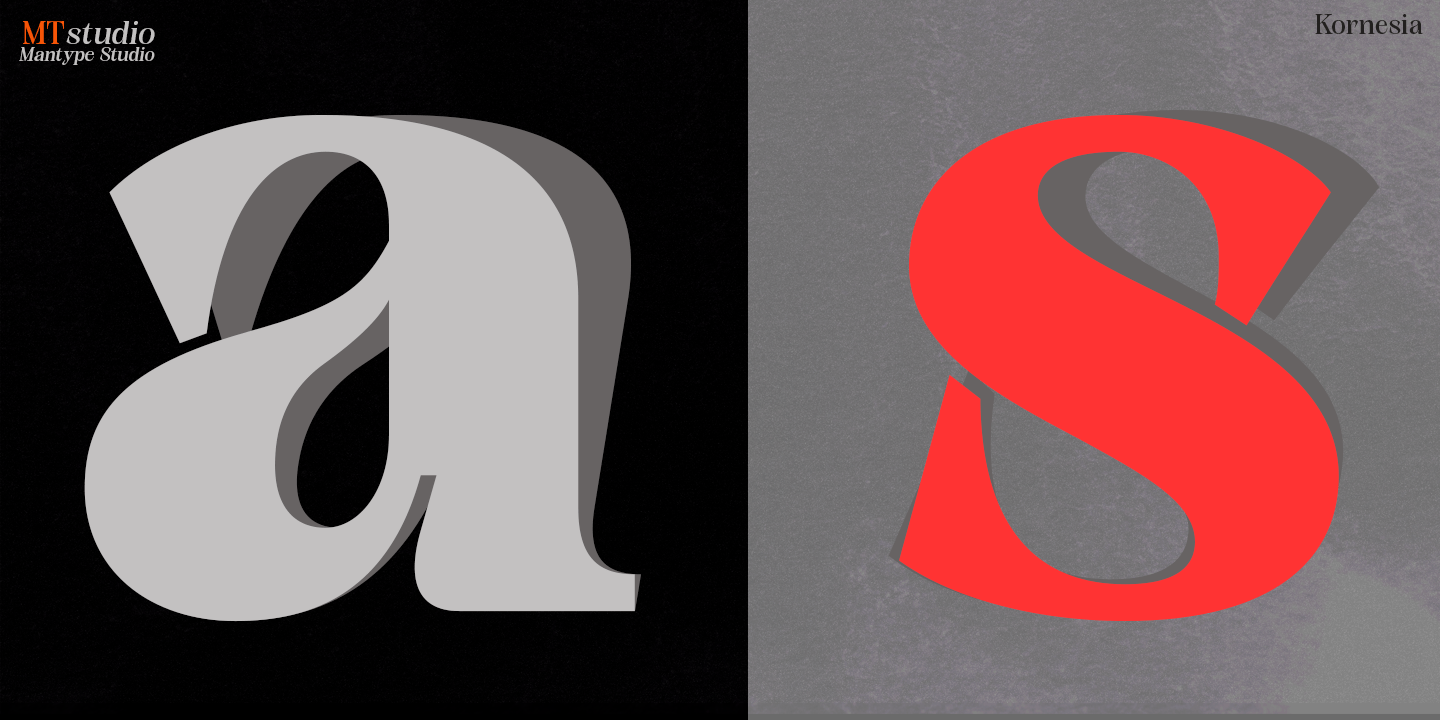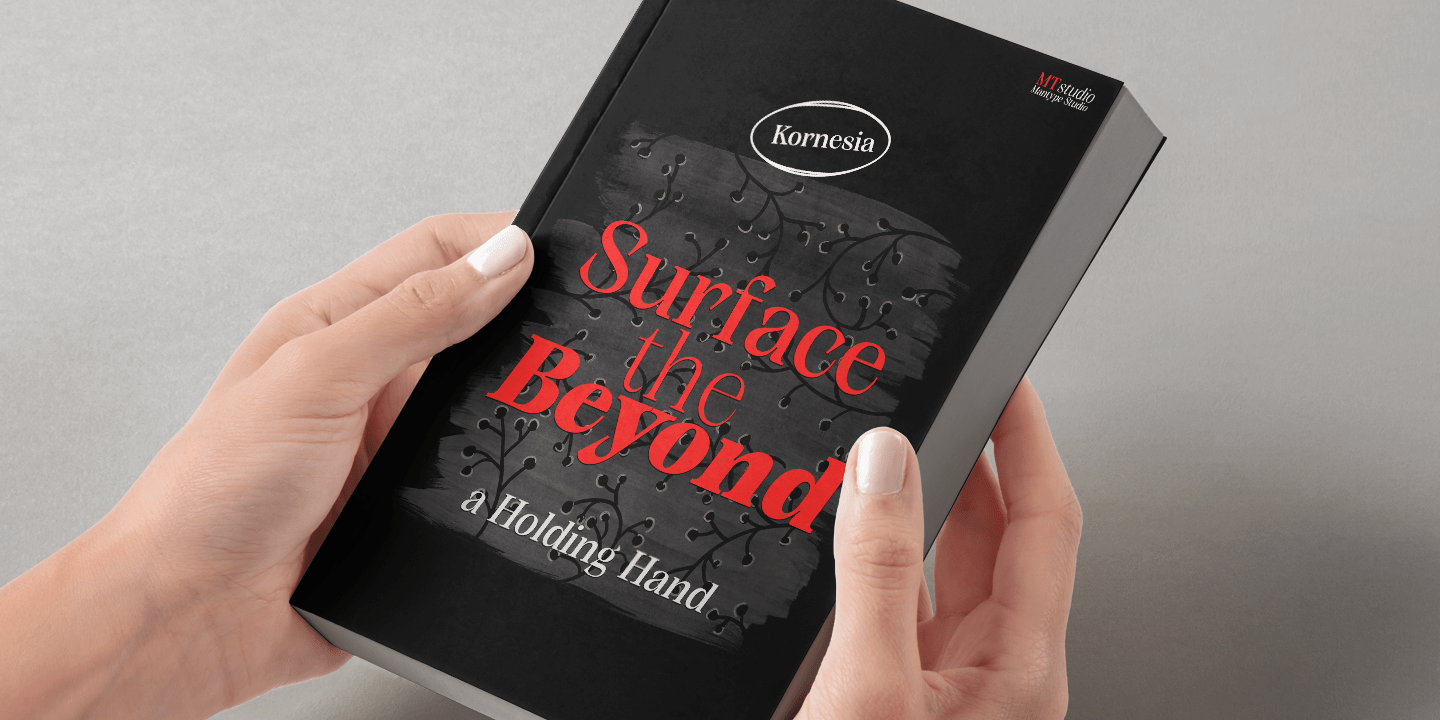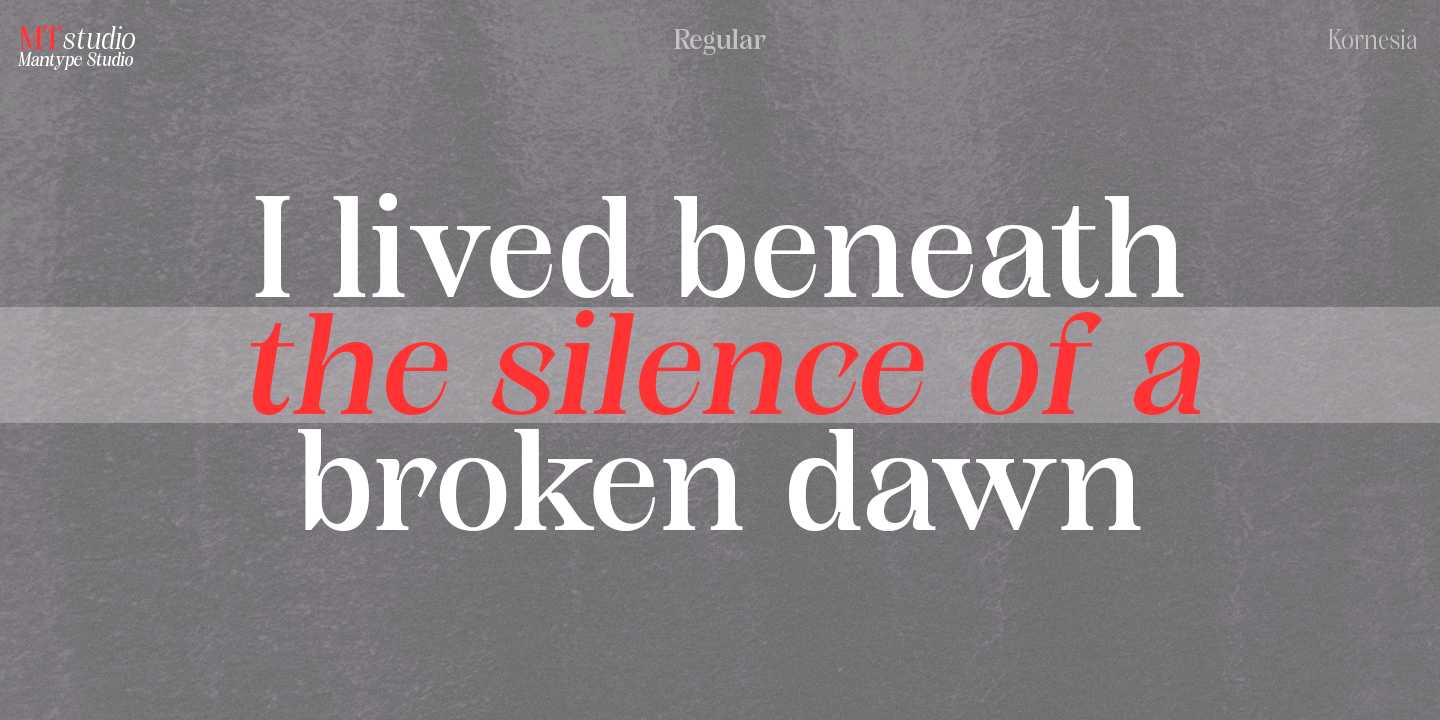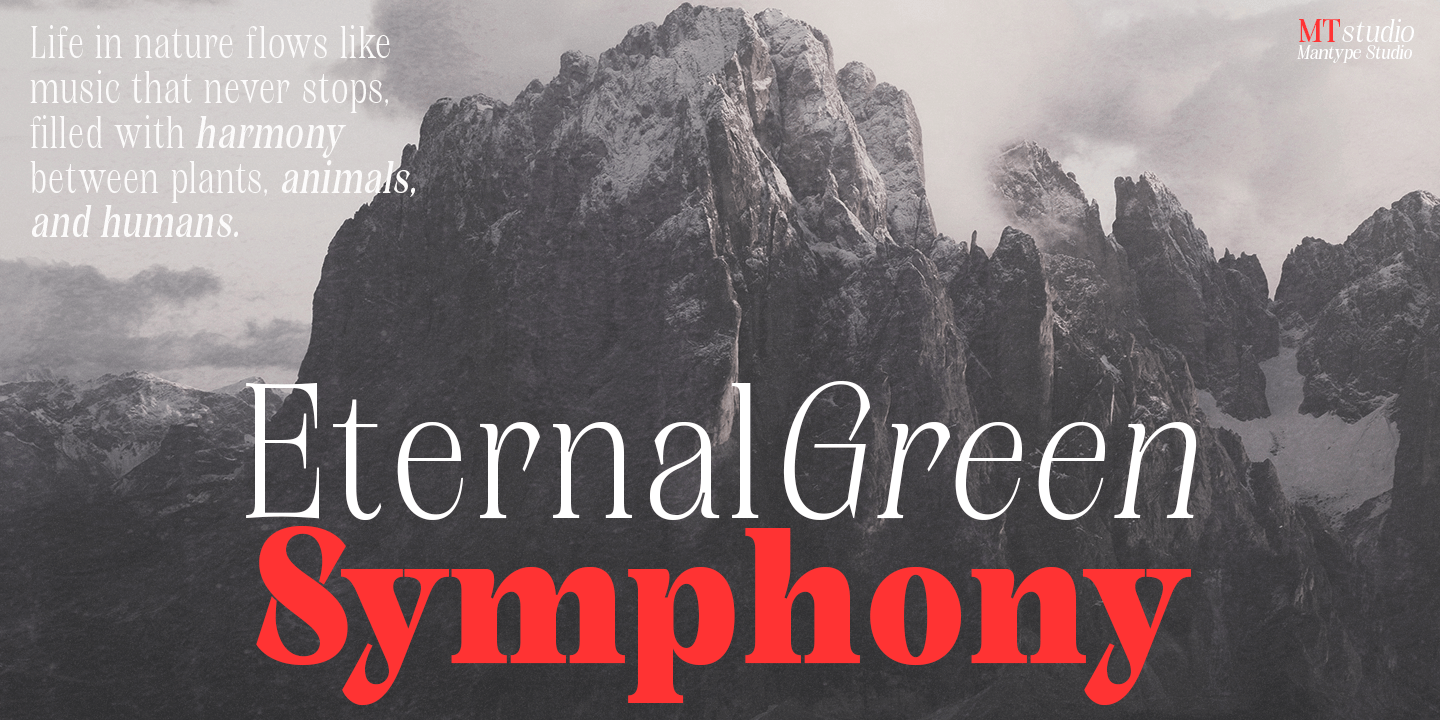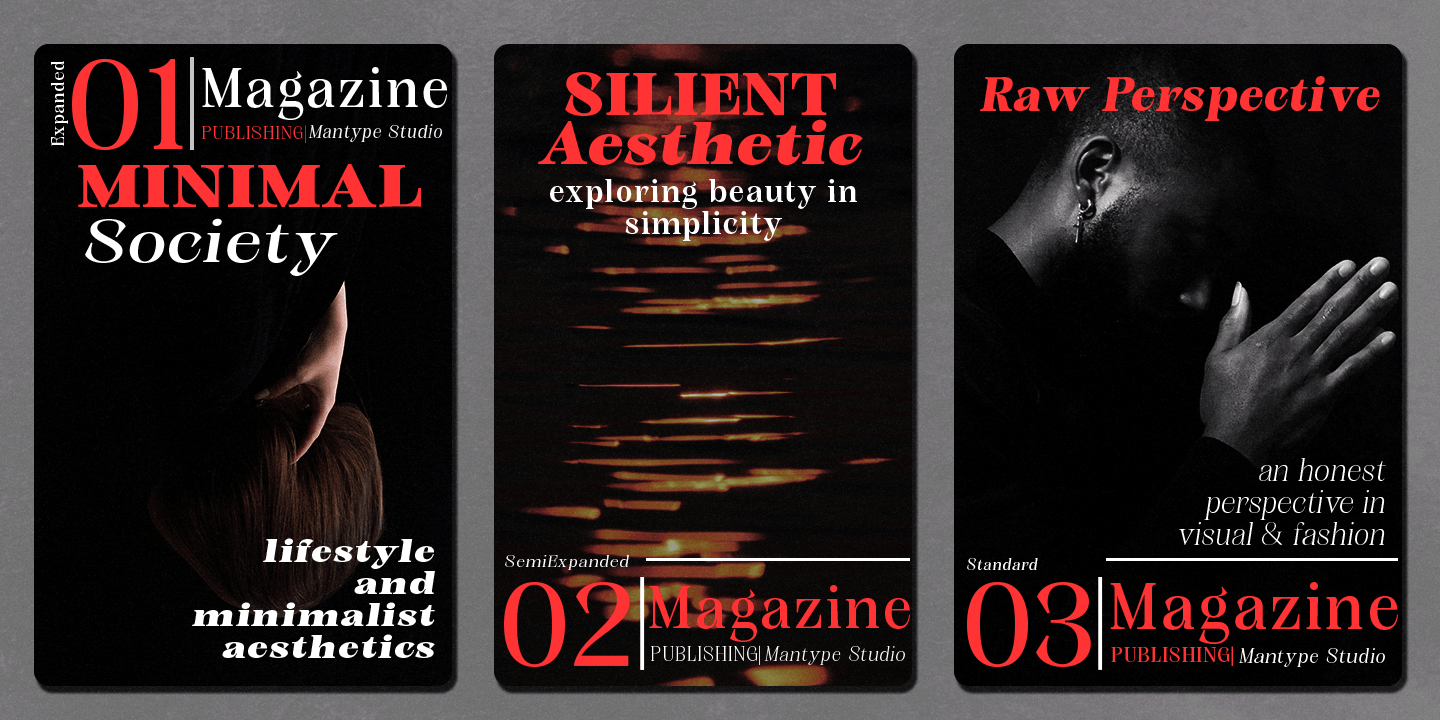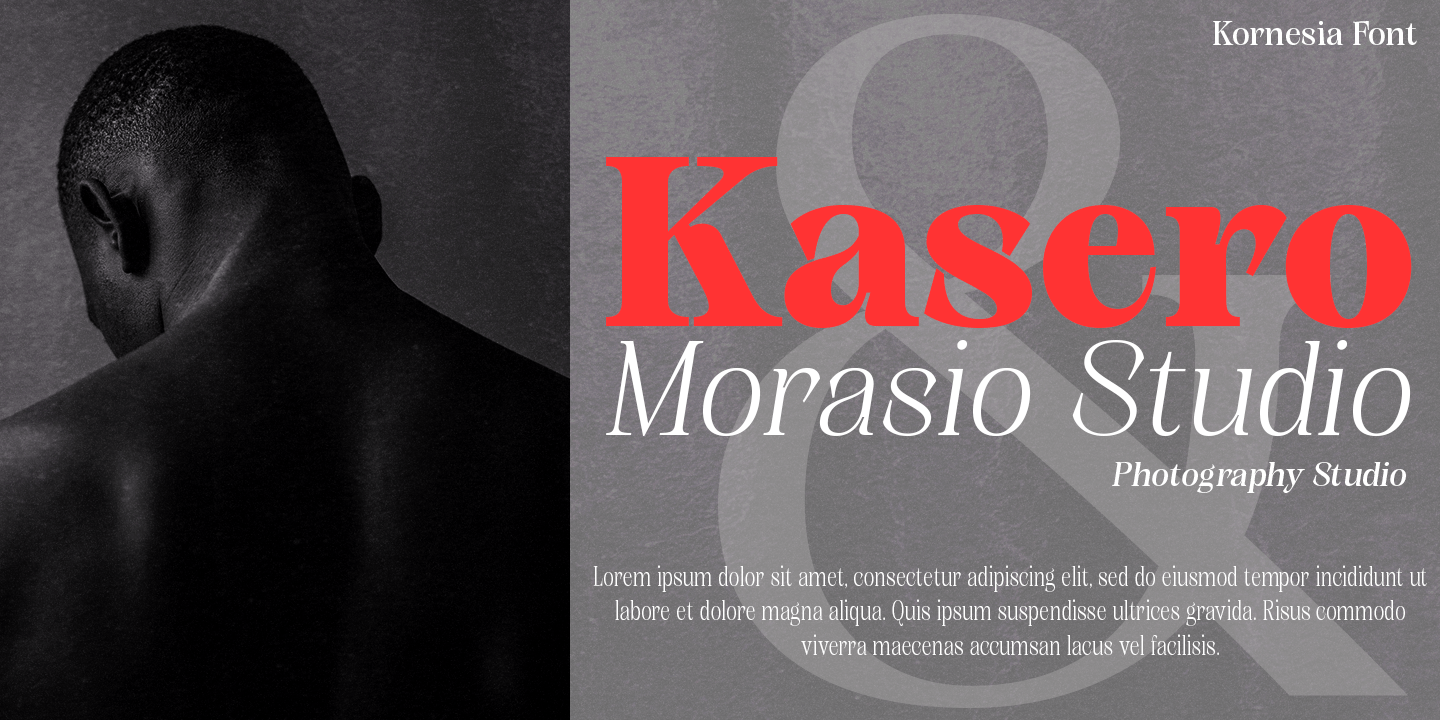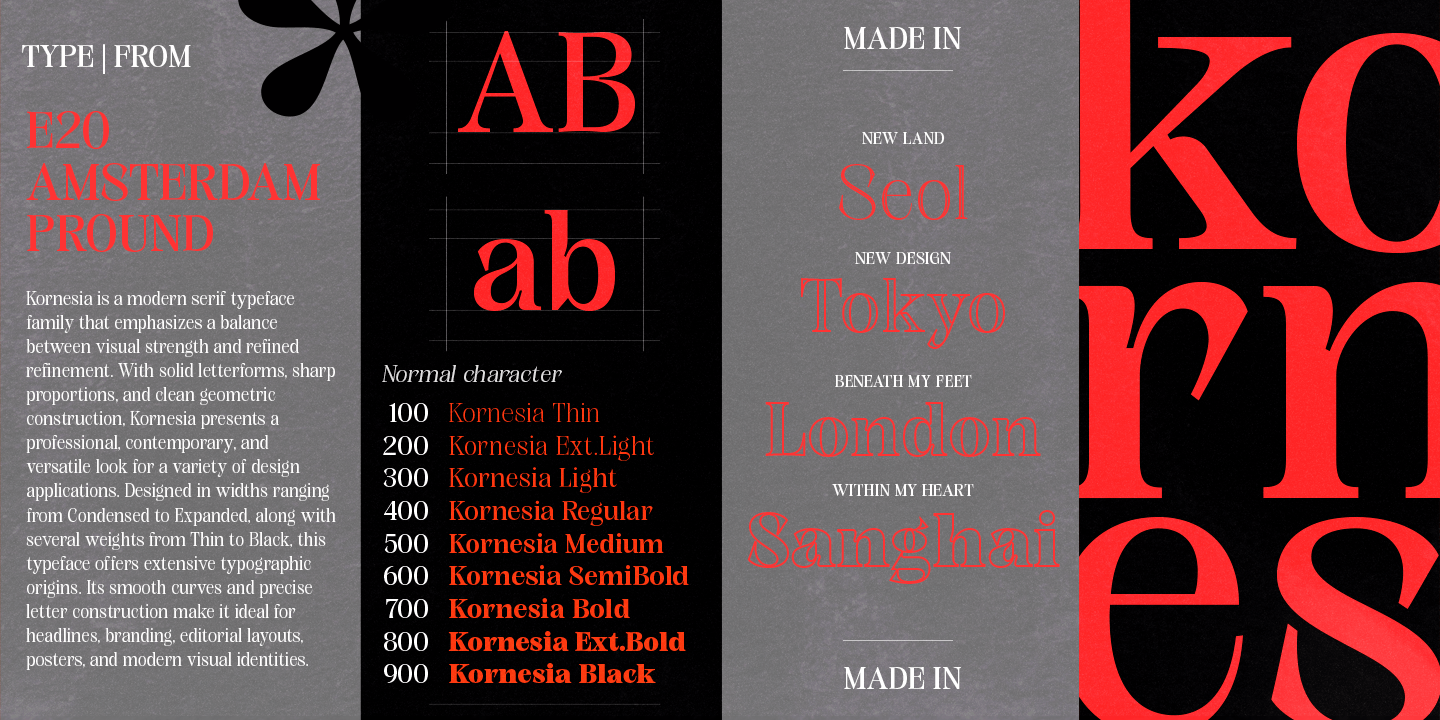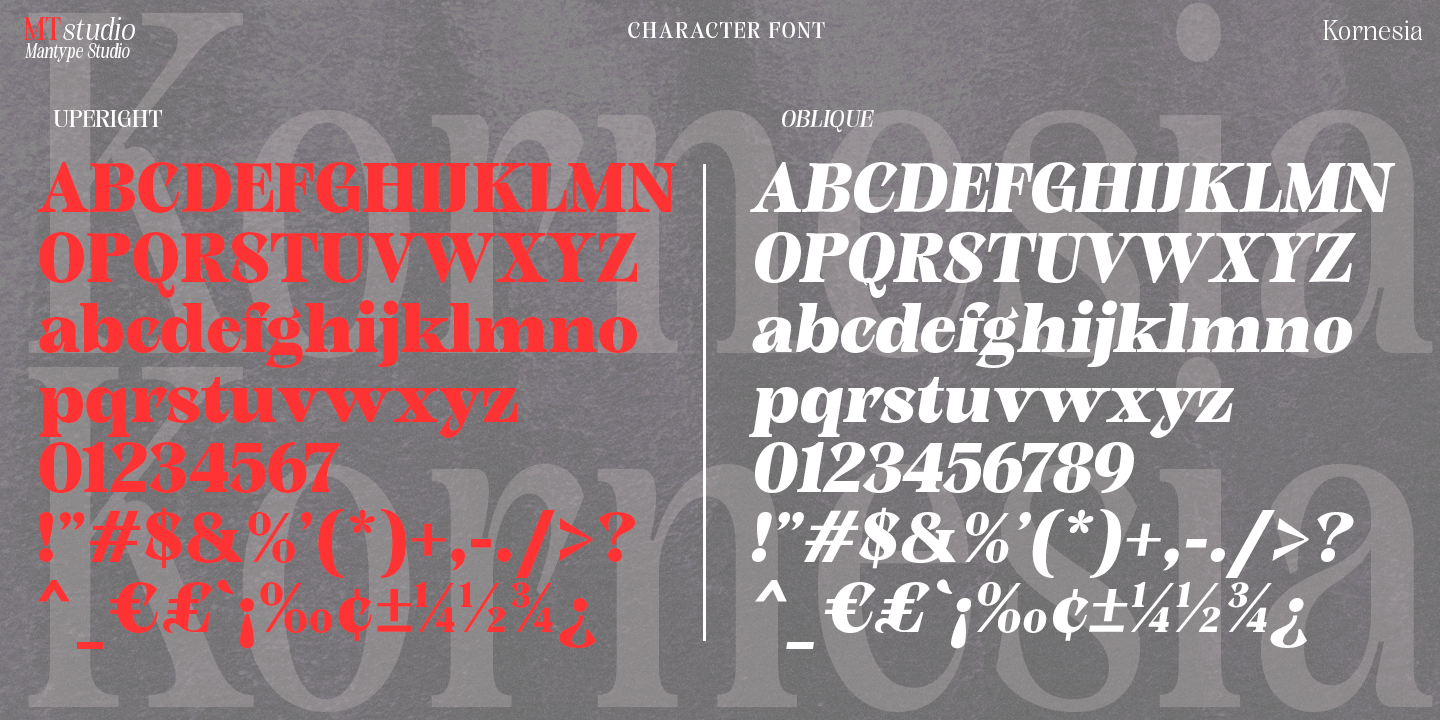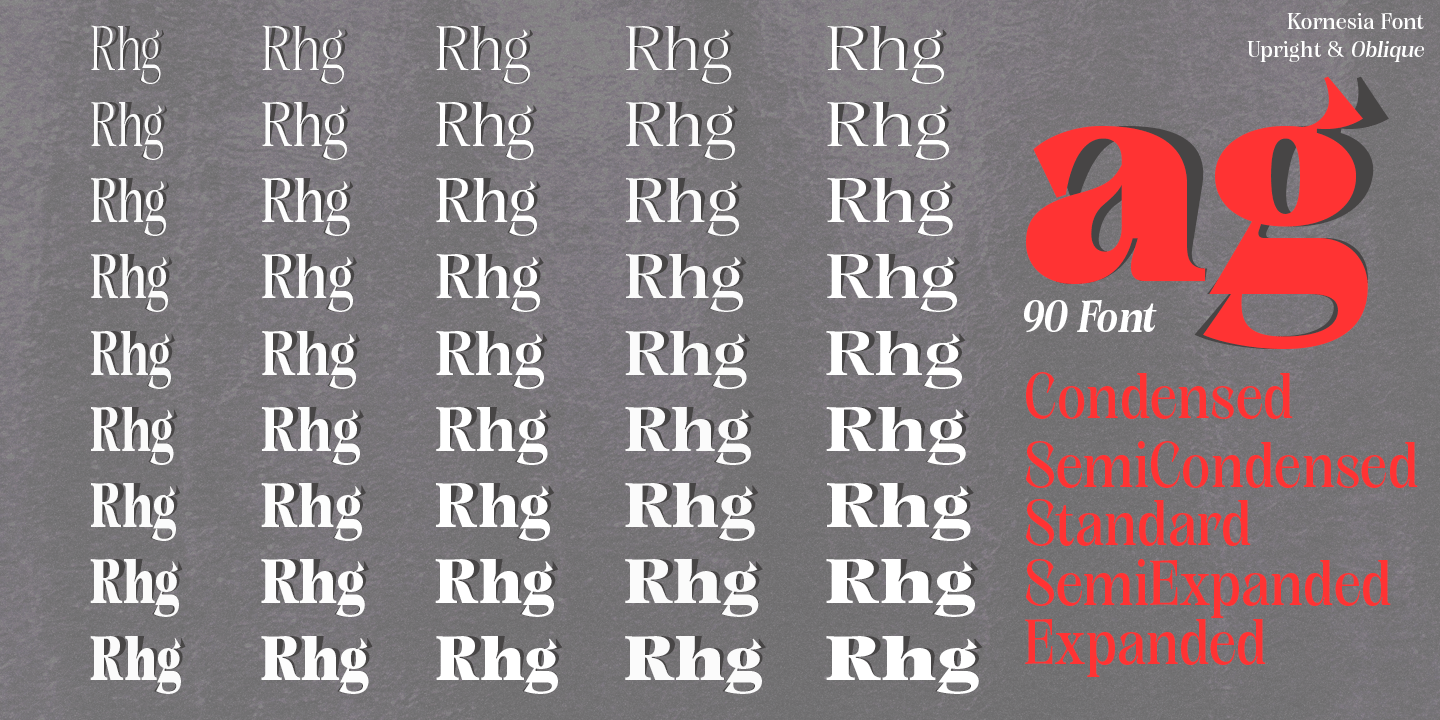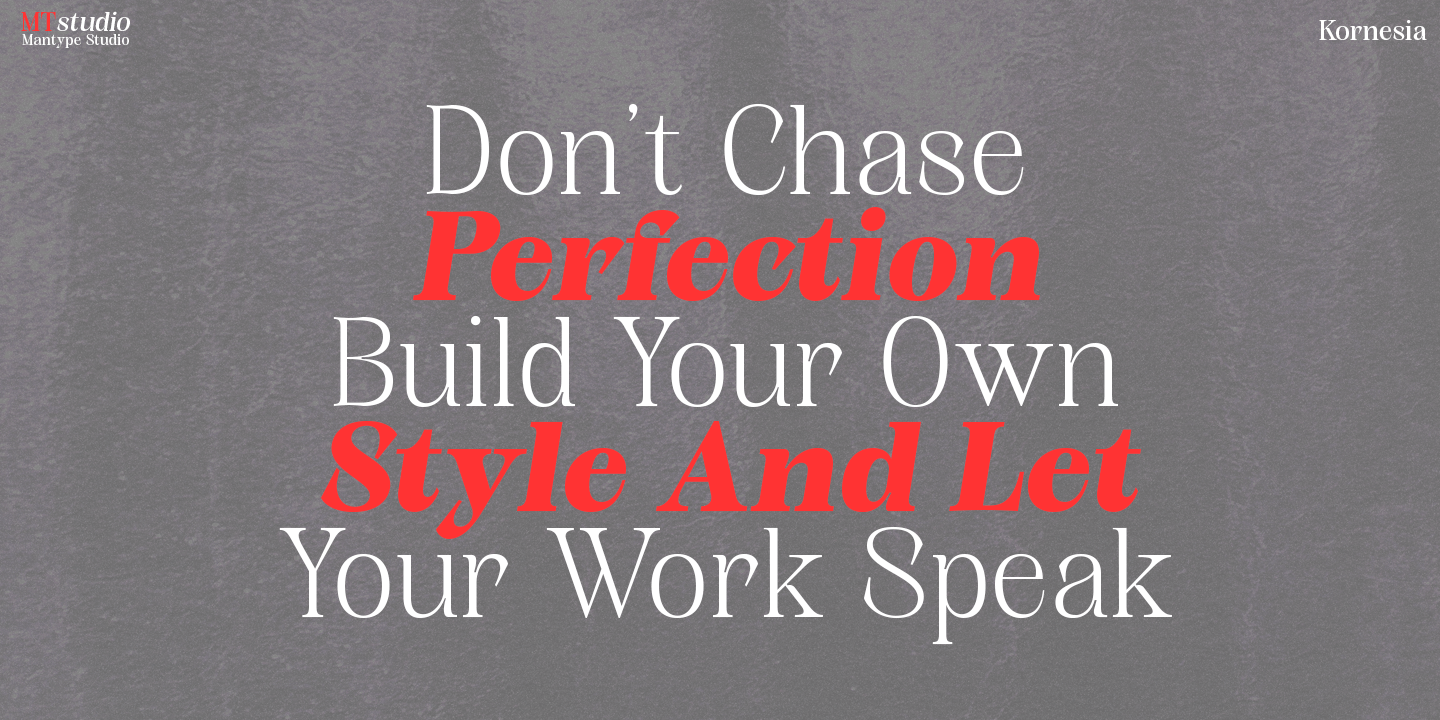
Kornesia Contrast
Kornesia Contrast is a luxury serif font with high contrast between thick and thin strokes, delivering an elegant, modern, and premium feel. Designed with balanced proportions and refined details, it stands out in headlines while maintaining good readability. As a variable font with weight, width, and oblique options, Kornesia offers high flexibility for branding, editorial, logos, and premium design needs. Its blend of classic character and contemporary touch makes it an ideal choice for a sophisticated and timeless look.